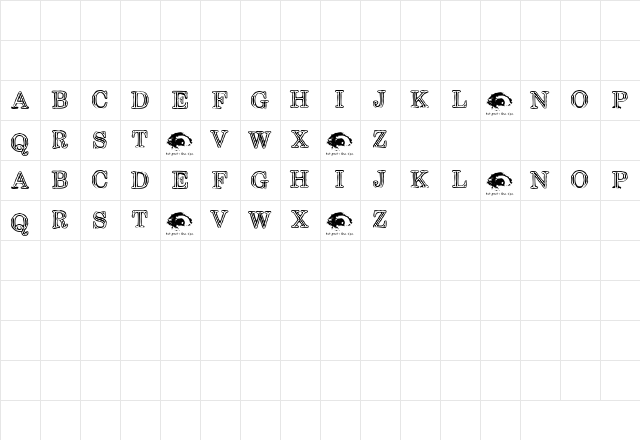
Steelcap RubbingTrial Regular Free Font
Steelcap RubbingTrial Regular
Design Context for Steelcap RubbingTrial
Steelcap RubbingTrial is a composed and adaptable typeface that performs quietly and consistently across a wide range of design contexts.